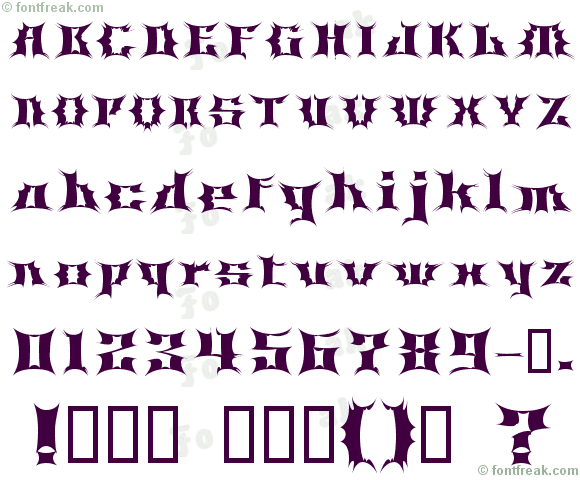
Corona sÿÿlyz
About Corona
The Corona font, designed by Masa Oshima, is a striking display typeface that infuses a sense of creativity and uniqueness into any project. This freeware font features a decorative style characterized by its whimsical, sharp edges and intricate letterforms. With a moderate stroke weight and high contrast between thick and thin lines, Corona captures attention while maintaining readability. The spacing between characters is thoughtfully designed to enhance clarity, making it suitable for a variety of applications.
Corona font is particularly well-suited for use in creative contexts such as movie posters, where its bold personality can draw viewers in, or in themed event invitations that aim to make a memorable impression. Its distinctive style also lends itself well to branding projects for small businesses looking to establish a unique identity. Additionally, graphic designers will find this font an excellent choice for merchandise designs, where a playful yet sophisticated aesthetic is desired. Content creators can employ the Corona font in social media graphics to stand out amidst a sea of standard typefaces.
Targeting graphic designers, small business owners, and content creators, the Corona font offers versatility and flair. Its artistic flair appeals to those seeking to convey a sense of fun and creativity in their work. By opting for the Corona font free download, users gain access to a typeface that not only stands out visually but also resonates with a creative audience.
What truly sets the Corona font apart is its ability to blend artistic expression with practicality. Its unique design elements invite exploration and creativity, making it a valuable addition to any designer's toolkit. Whether for personal projects or professional endeavors, Corona is a font that promises to elevate the visual impact of your designs.